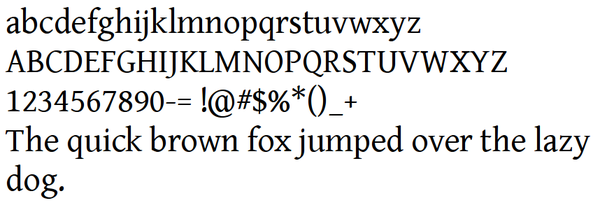
How Free Software Got Its Fonts
A History of Open Source Fonts
ByWith the advent of free software for non-programmers, users ran into a licensing dilemma in a world of proprietary fonts.
Most Linux users soon hear of the influence of the GNU General Public License (GPL) in the development of free software. However, fewer have heard of the influence of the SIL Font License, although it is as important for design as the GPL has been for software. Just as the GPL is responsible for the development of free software, so the SIL Font License has enabled the rise of the free font movement, making Linux a practical choice for designers and artists. Today, it is the most popular free license for fonts, although few know its story.
Today, many distributions install with a variety of fonts, some for enabling multiple languages, and others for design. Yet, until the early years of the millennium, fonts were an afterthought in free software. Free licensed fonts were packaged in most distributions, but they were intended for on-screen display, particularly in terminals. The emphasis was on monospaced fonts – fonts whose letters all took up exactly the same space – the kind familiar at the command line. If the quality was generally poor, no one minded, because the fonts were good enough for on-screen viewing, and most people using them were developers, not designers.
Around the turn of millennium, the needs of users started to change. For one thing, Gimp had developed to the point that it could be used for professional work. Just as importantly, in July 2000, Sun Microsystems released the StarDivision code that became OpenOffice.org, and later Apache OpenOffice and LibreOffice, giving free software its first full office system. According to rumor, the StarDivision developers were told that they would have to use the Writer word processor to document their work, which meant that free software also had its first intermediate desktop publisher.
The problem was, fonts at the time were either proprietary or public domain. Obviously, proprietary fonts would be incompatible with free software, but what happened when a font was embedded in a GPL document? At the same time, font designers were concerned that, if they released their work under a free license, it might be included in collections of low-quality fonts, and their reputation might suffer as a result.
This body of issues was not covered by the GPL, then in its second version. In fact, the growing feeling was that the GPL was not suited to artistic works, which place an emphasis on authorship that is missing in most software projects. A similar perspective led to the GNU Free Documentation License in the same era.
Some of the Creative Commons licenses were more suitable for fonts, such as the Attribution-ShareAlike, but while they were an improvement over the GPL for fonts, neither they nor any other free license was ideal, either. Yet, if these concerns could be settled, free software could potentially attract a whole new body of users who were not developers.
The GPL Font Exception
One attempt to address these issues was the GPL Font Exception. Written by David Turner in 2005, the Font Exception is an optional clause at the end of the license:
“As a special exception, if you create a document which uses this font, and embed this font or unaltered portions of this font into the document, this font does not by itself cause the resulting document to be covered by the GNU General Public License. This exception does not however invalidate any other reasons why the document might be covered by the GNU General Public License. If you modify this font, you may extend this exception to your version of the font, but you are not obligated to do so. If you do not wish to do so, delete this exception statement from your version.”
In other words, the document and embedded fonts are licensed separately, and the license of one does not affect the license of the other.
The Font Exception satisfied the Free Software Foundation’s concerns, and was used by Red Hat in 2007 when it first released its Liberation Fonts, a collection of fonts that are metrically equivalent to Times New Roman, Arial, and Courier, occupying the same space as these three popular fonts, but different from them in design. However, the Font Exception did not address the concerns of font designers, so perhaps it is no accident that Google later relicensed the Liberation Fonts and released them under the Apache License 2.0, under the name CrosCore fonts. The Font Exception is still used today, but it has become a minority preference.
The Rise of SIL
Another solution was the license under which the Bitstream font family were licensed by Gnome in 2003. The Bitstream Vera License granted users “the rights to use, copy, merge, publish, distribute, and/or sell copies of the Font Software” so long as the copyright accompanied any use of the fonts. In addition, no derivative fonts could use the words “Bitstream” or “Vera” in their names and could not be sold alone.
Around the same time, SIL International, a Christian academic organization, was developing fonts to promote literacy in developing countries and to encourage the use of minority and previously unwritten languages. In 2006, Victor Gaultney, one of SIL’s designers, released Gentium, a font he had designed for his Master of Arts in Typeface Design at the University of Reading under a license inspired by the Bitstream Vera License.